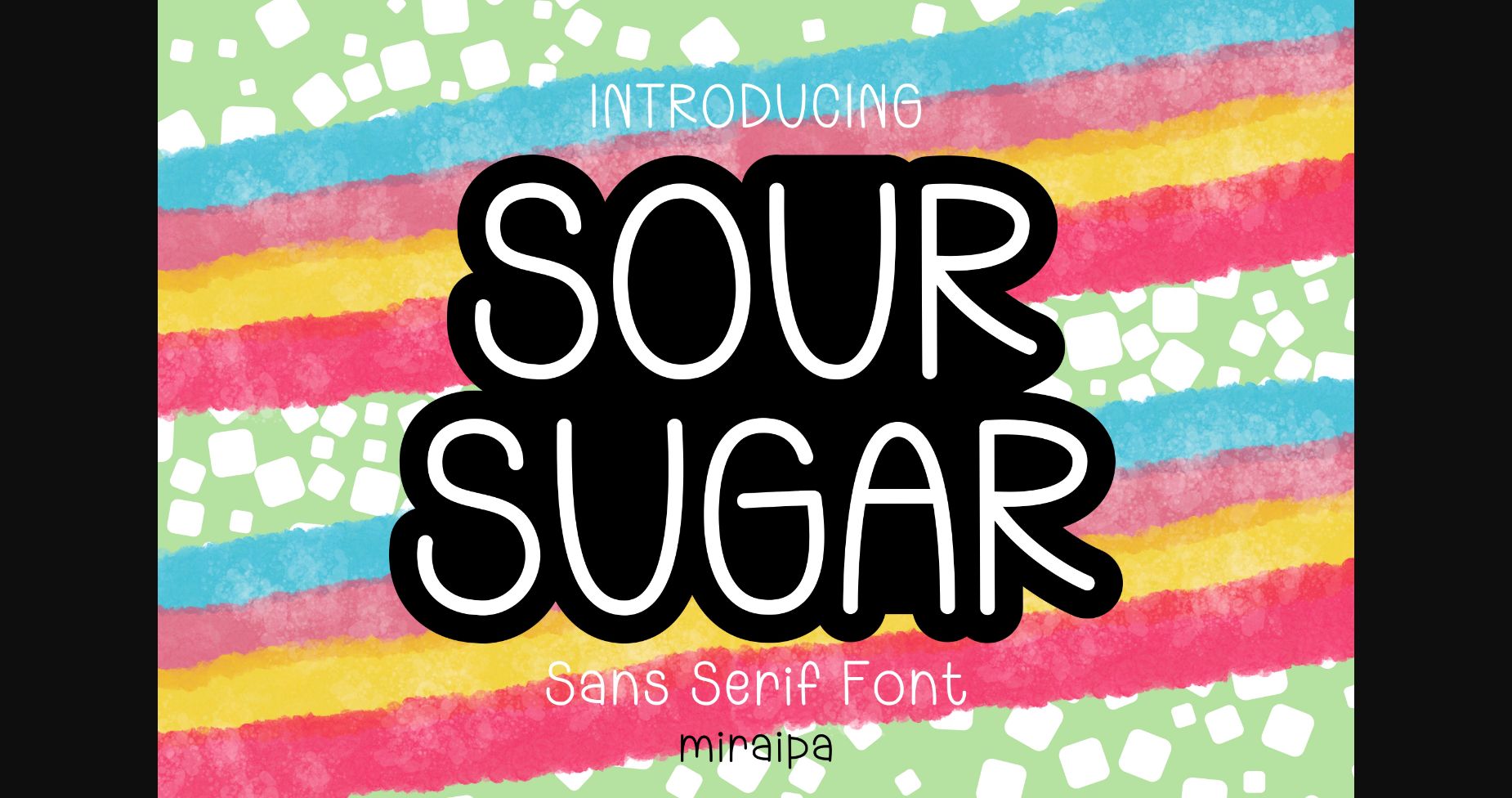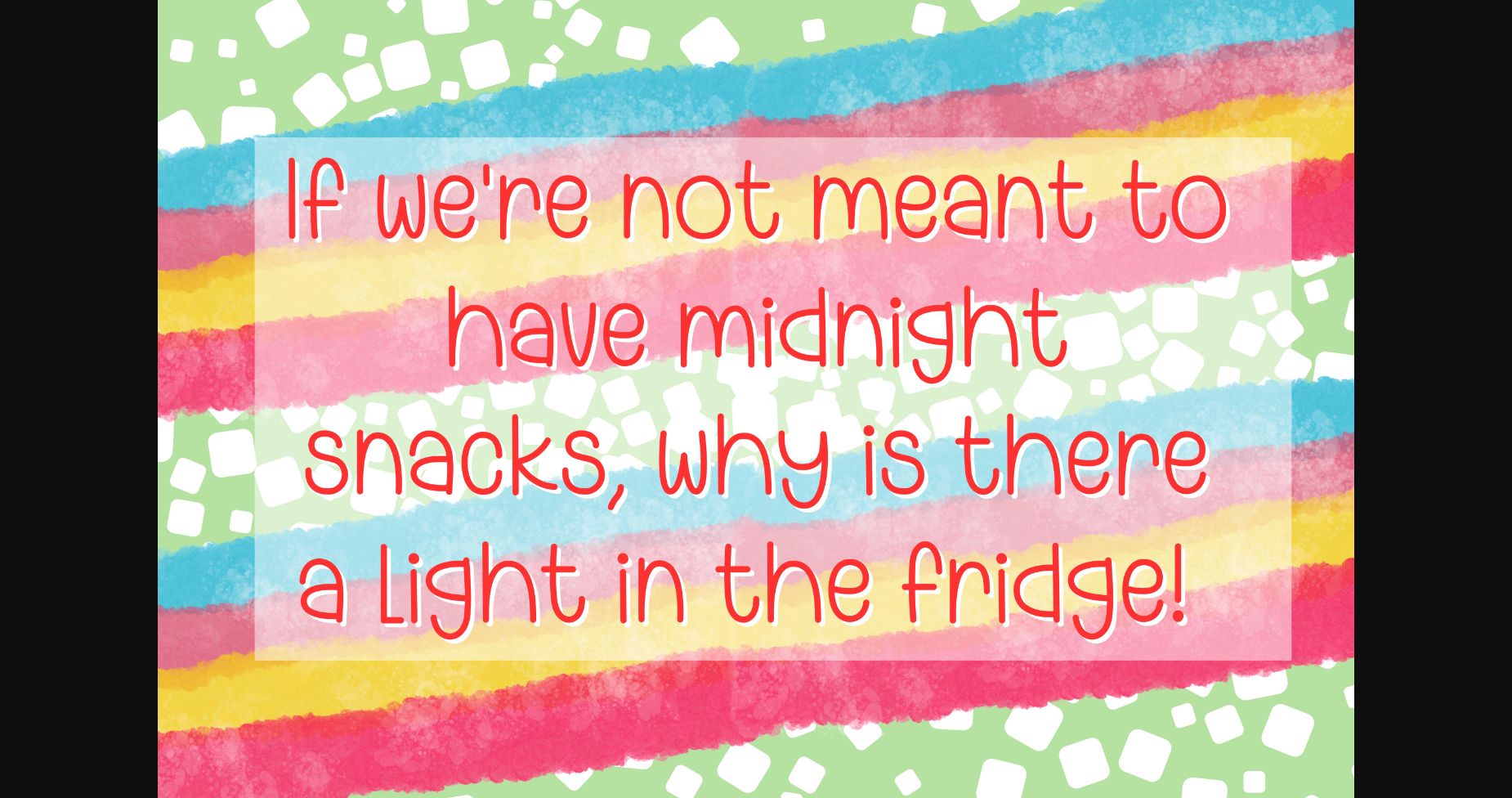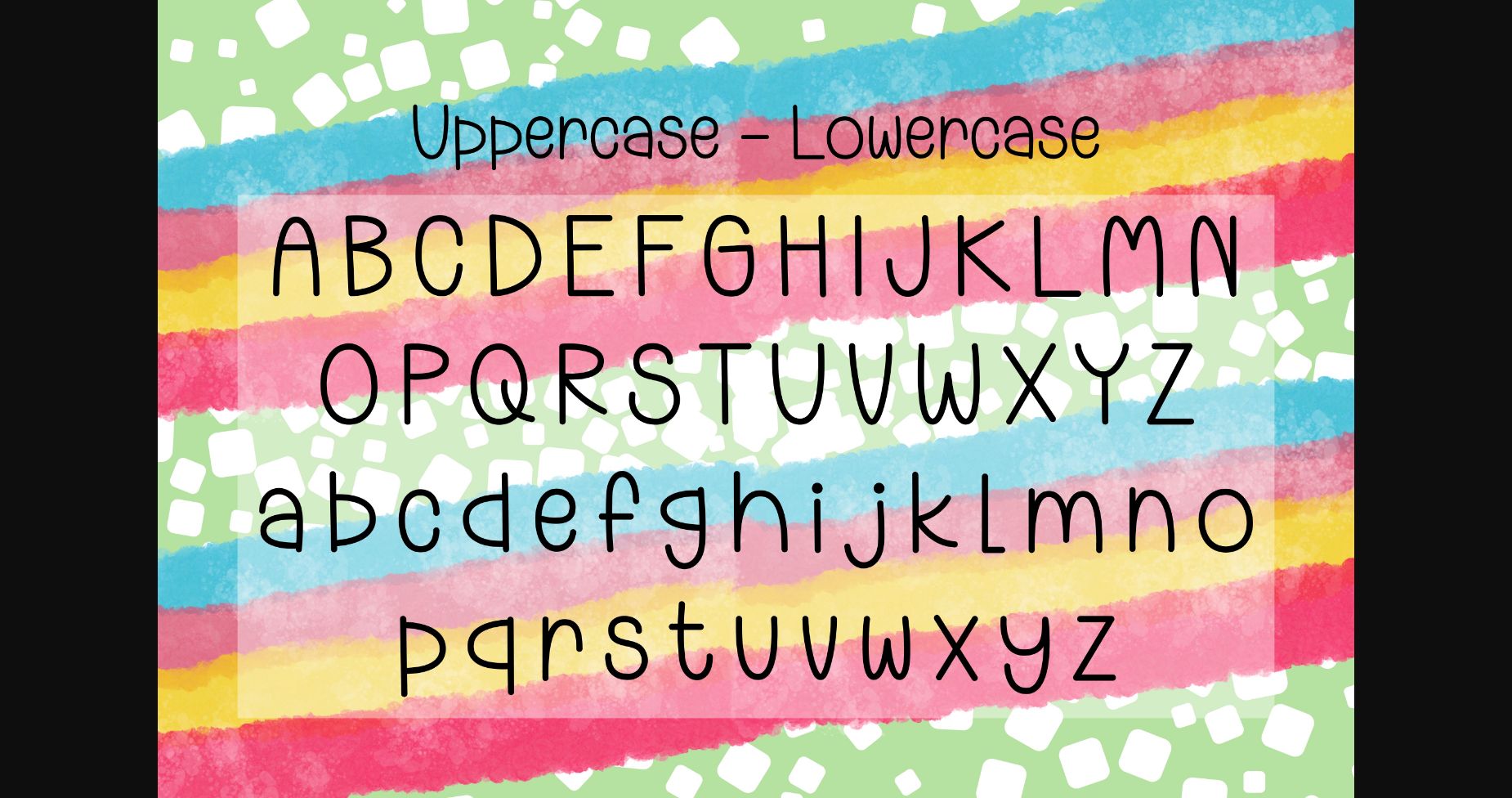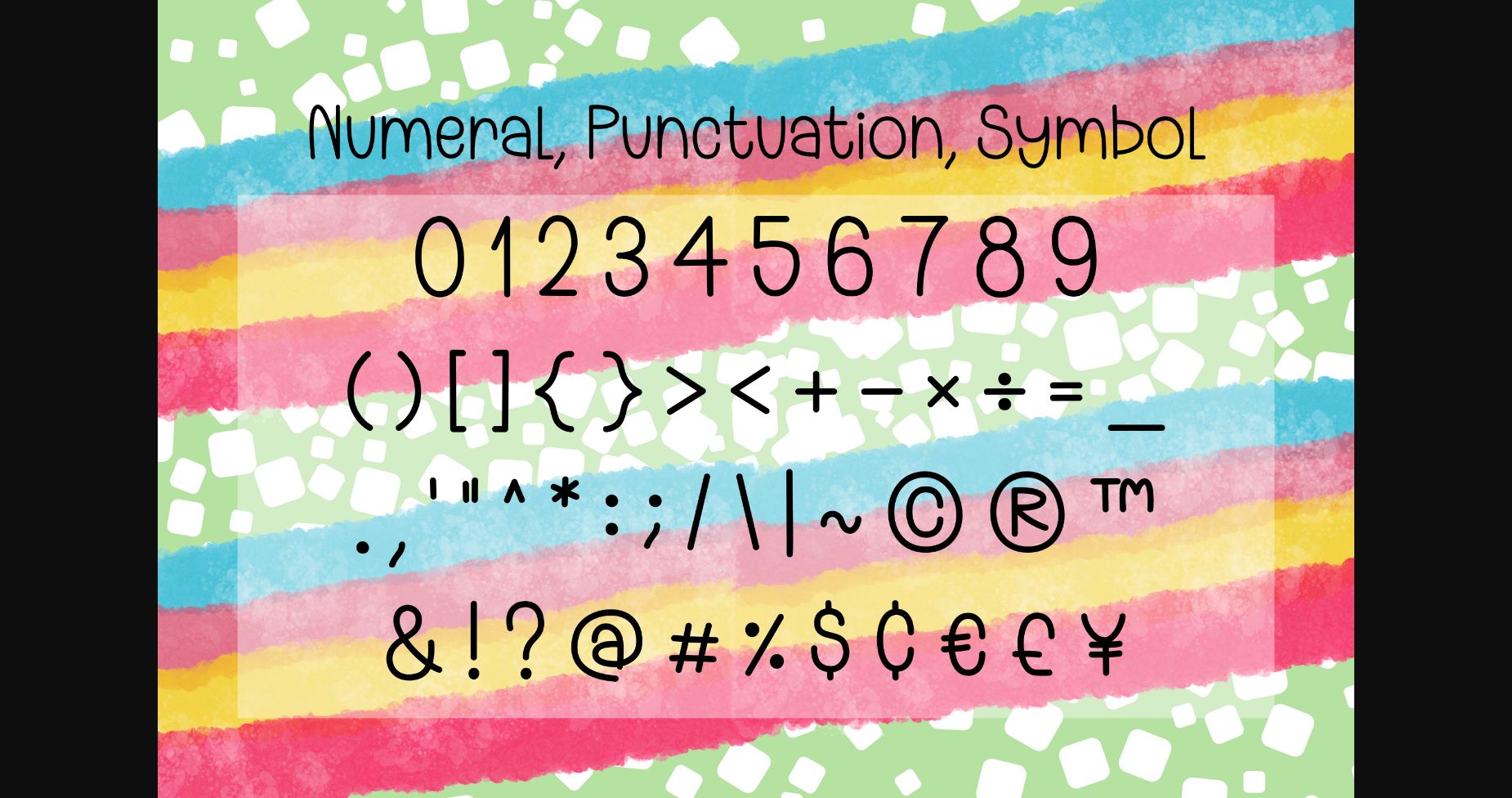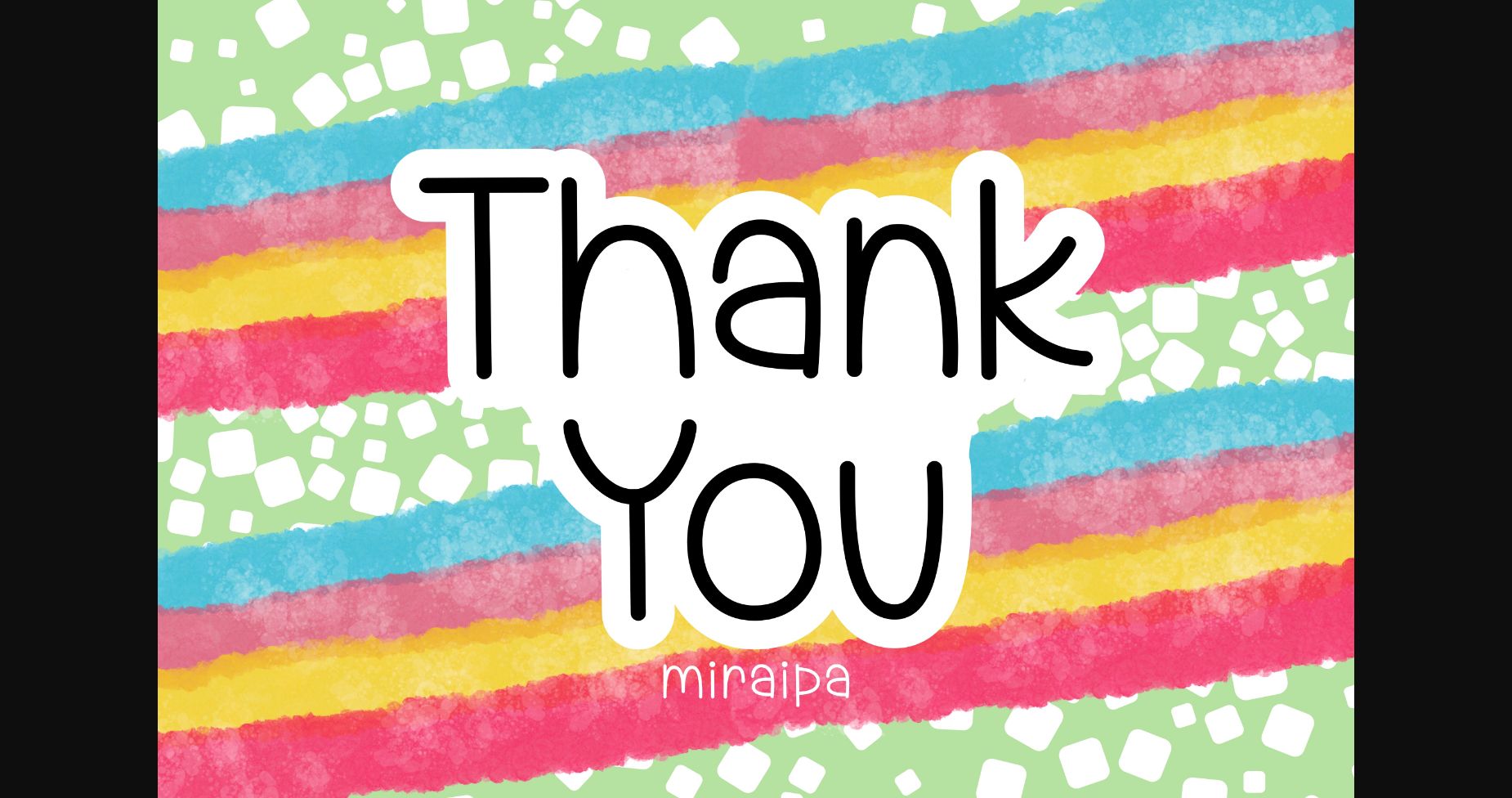
Sour Sugar Font
About Sour Sugar Font
Sour Sugar is an adorable, casual sans serif font. Whether you’re using it for crafts, digital design, presentations, or making greeting cards, this font has the potential to become your favorite go-to font, no matter the occasion!